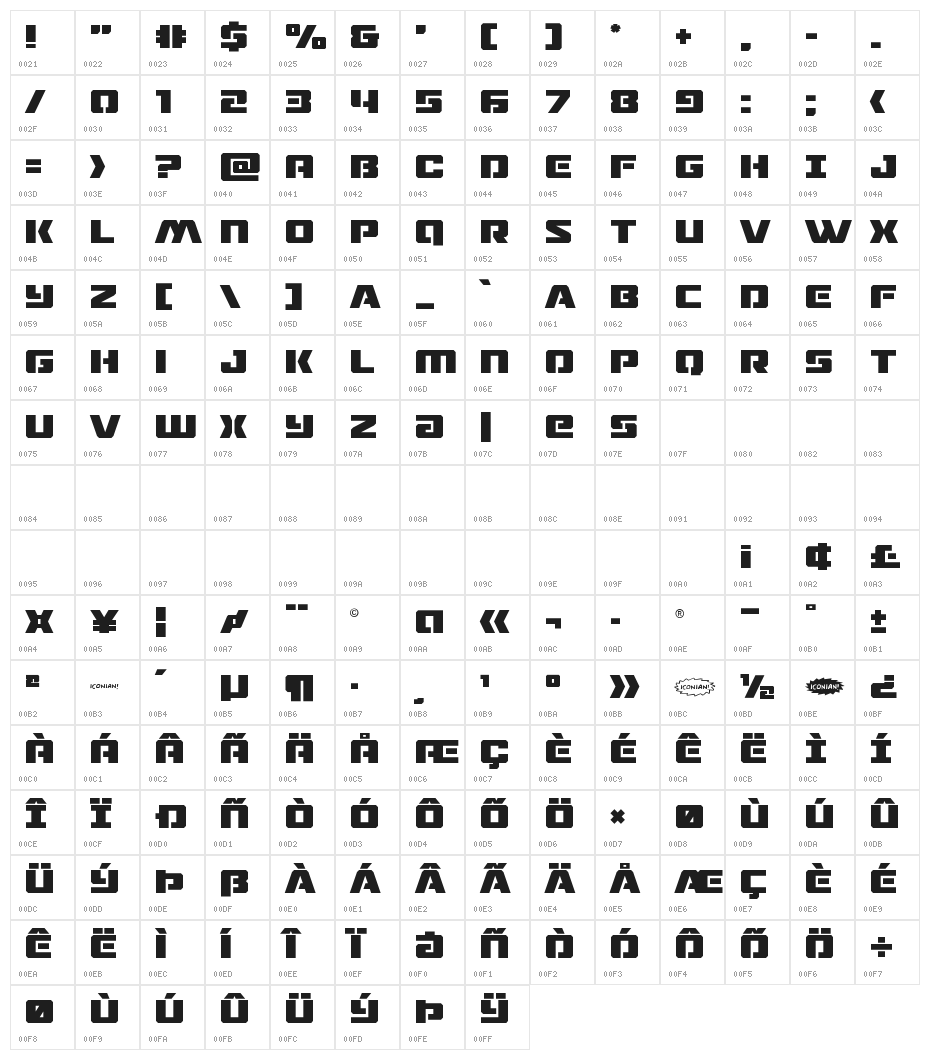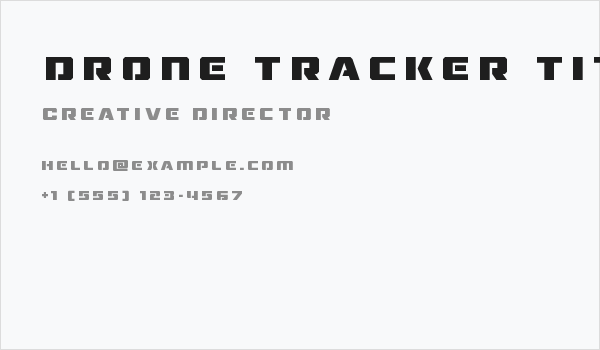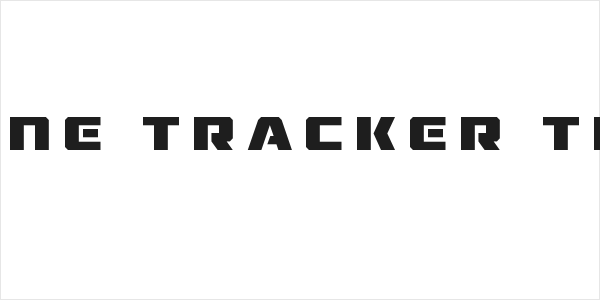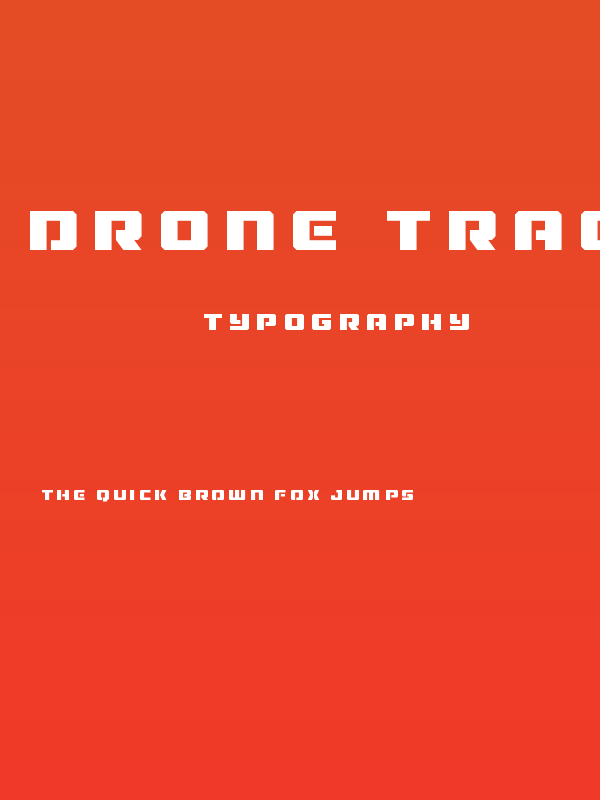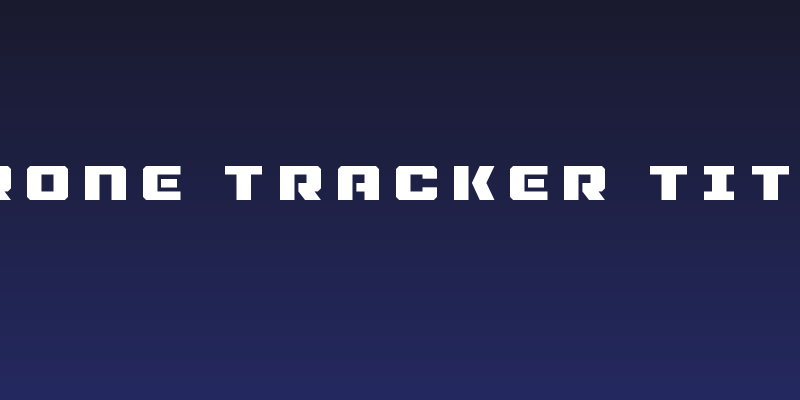
Drone Tracker Title Font
Drone Tracker Title Description
This font features a bold, geometric design with a futuristic and industrial feel. The characters are constructed with sharp angles and straight lines, giving it a strong and assertive appearance. The uppercase and lowercase letters maintain a consistent style, with uniform stroke widths and a blocky structure. The numerals and special characters follow the same design principles, ensuring a cohesive look across all glyphs. This font is ideal for projects that require a modern and impactful visual presence.
| Proposed Projects | Ideal for technology branding, video game titles, sci-fi movie posters, and industrial-themed designs. |